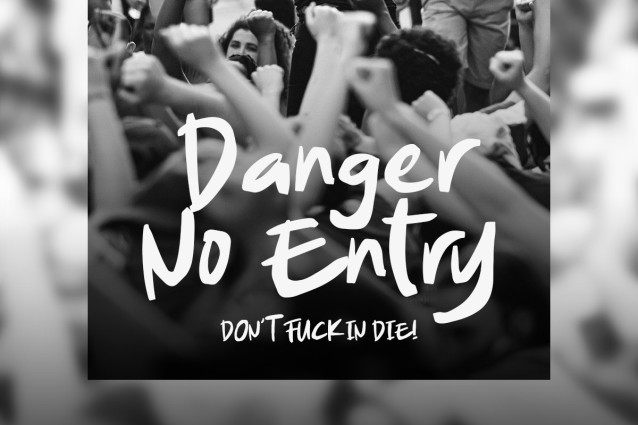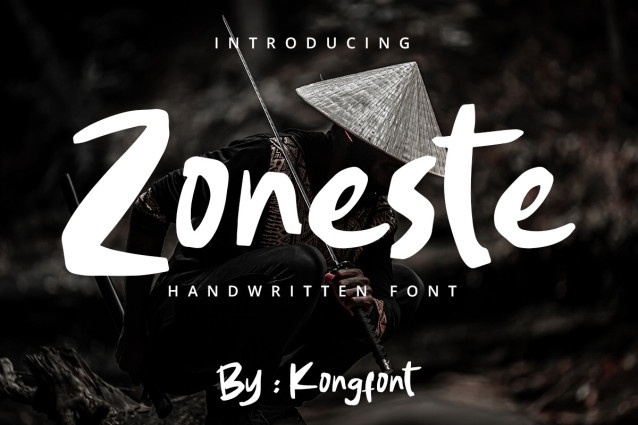
Zoneste Font
Zoneste Font, a diverse collection of typefaces with interesting features. This time, Zoneste Modern Display Font is one of the best choices among other fonts. This font is a bold monoline typeface. Some letters are written in a series and look very nice. Zoneste Modern Display Font is a legible font. This font style is not applicable for prints that are too large or too small because it will reduce the readability. It must be used with the right font size to create the most attractive impression. Zoneste Modern Display Font can be applied for many purposes, such as product branding. It can be used as a label, advertising poster, and store sign. This font can be used digitally when you want to promote products on social media. In addition to products, this font can be used to promote services, such as photography. Zoneste Modern Display Font is one of the best fonts for motivational and encouraging quotes. The beautiful shapes of the letters look great when combined with the right textures and colors. Our Display font collection is compatible with Figma Fonts, Canva Fonts, Freepik Fonts, and Adobe Fonts. They also work as Windows and Apple fonts. For your social media needs, you can use and install fonts from our Script & Signature font collection to use as Instagram fonts, Facebook fonts, and Twitter fonts.